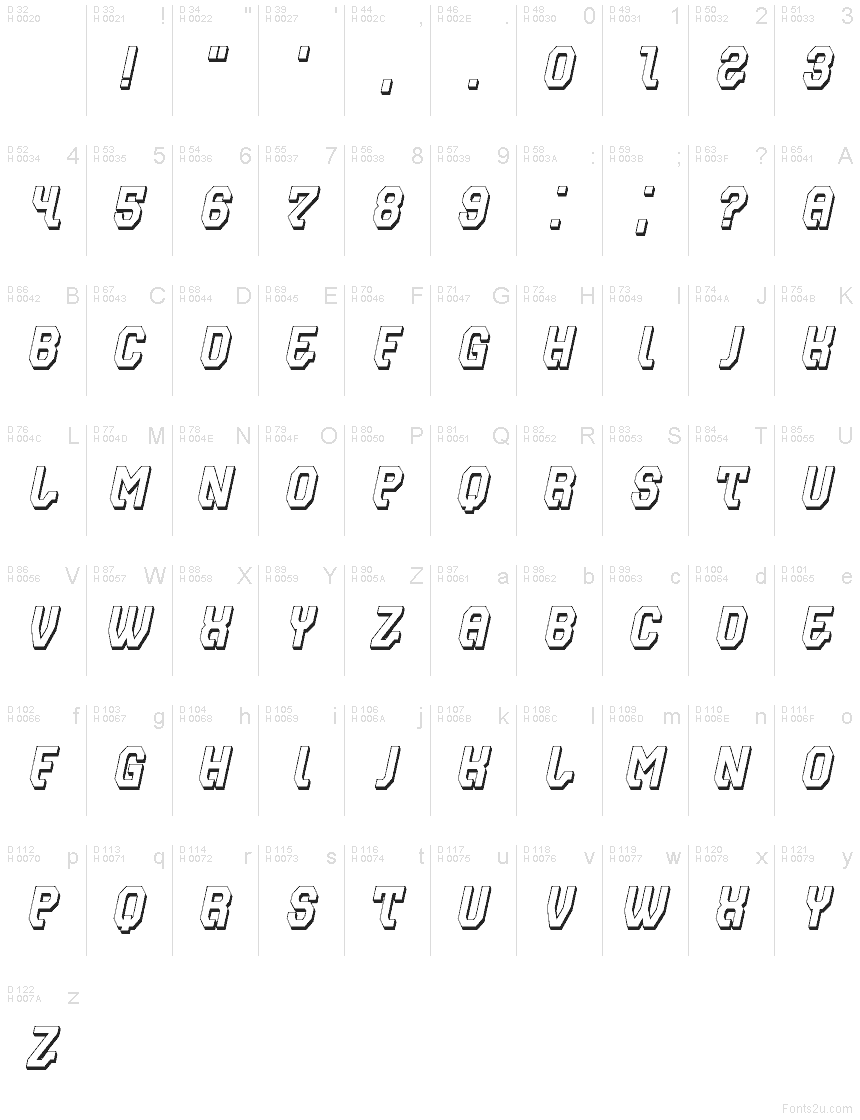
To Be Continued 3D font by Vladimir Nikolic is a free 3D techno display typeface that turns any short phrase into a cliffhanger. Its slanted letters, sharp inner cuts, and thick shadowed sides give every word a sense of motion, like a title frozen mid-action. The stacked outline and chunky depth feel almost mechanical, as if the text were part of a sci-fi interface or retro game loading screen.
Using To Be Continued 3D in the To Be Continued family works beautifully for YouTube outros, game logos, comic panels, stream overlays, event posters, and retro title cards. This free font shines when you keep copy short and bold, then support it with a clean sans-serif for small text. Set it large, add a bright gradient or neon glow, and your project instantly feels charged with “next episode” energy.